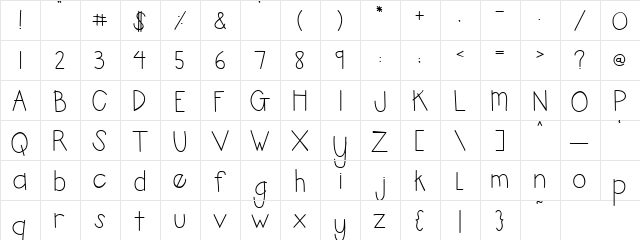
PC Miss Thom Regular Font Preview
PC Miss Thom Regular
Design Context for PC Miss Thom Typeface
PC Miss Thom offers clean, dependable letterforms without strong stylistic allegiance, making it a practical choice for designers who need flexibility.